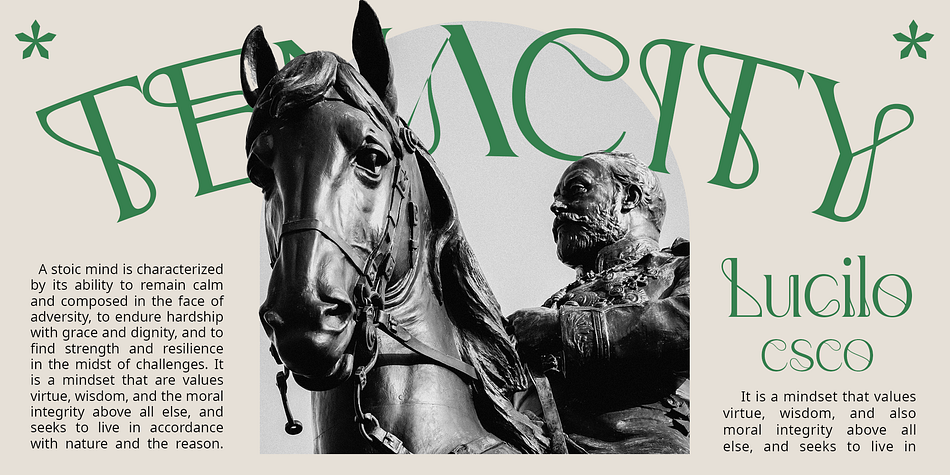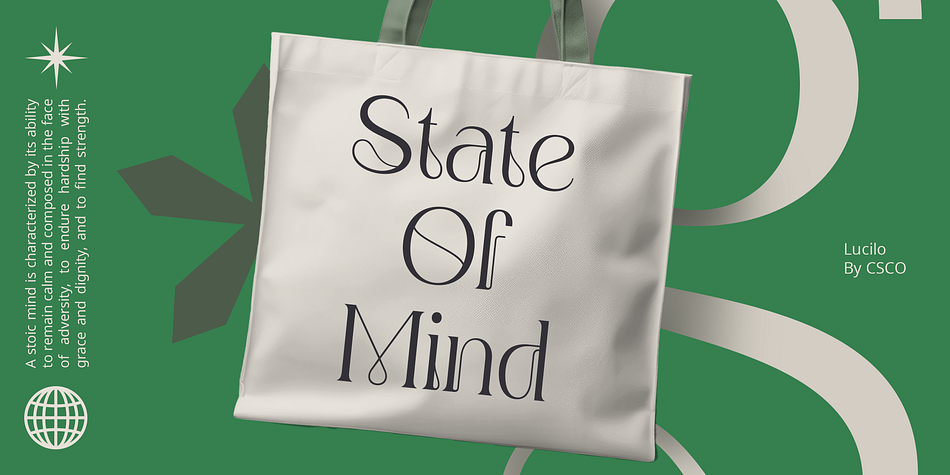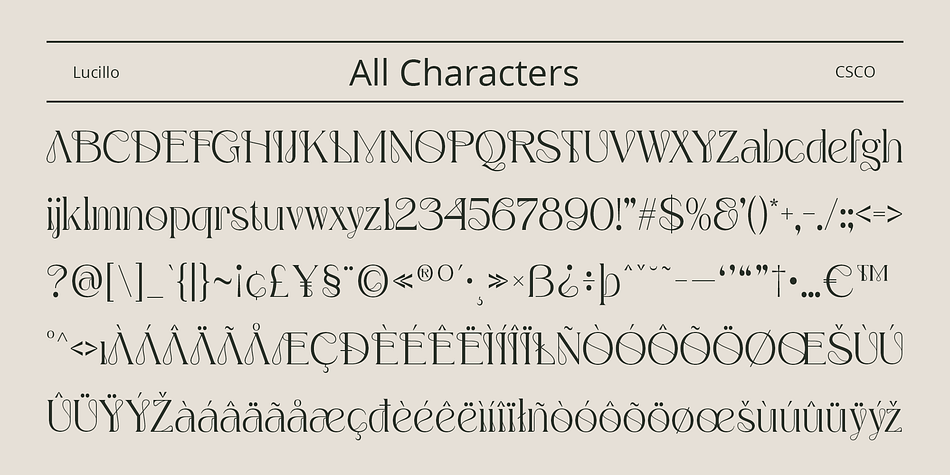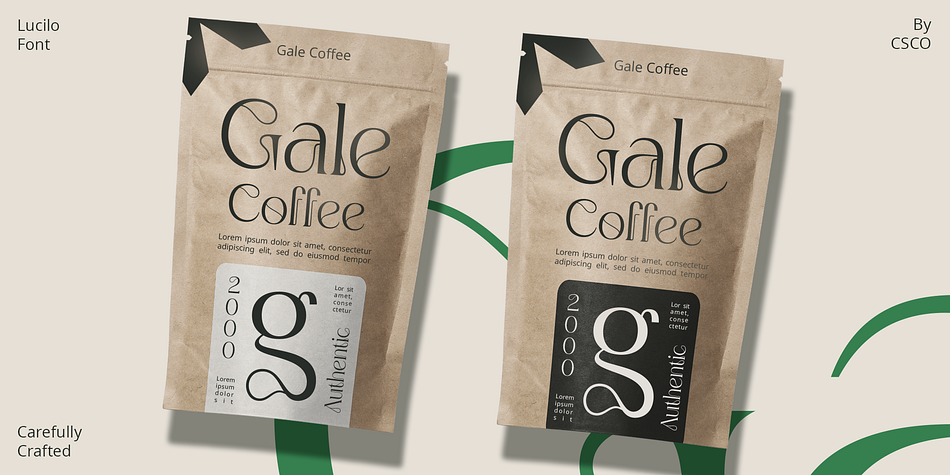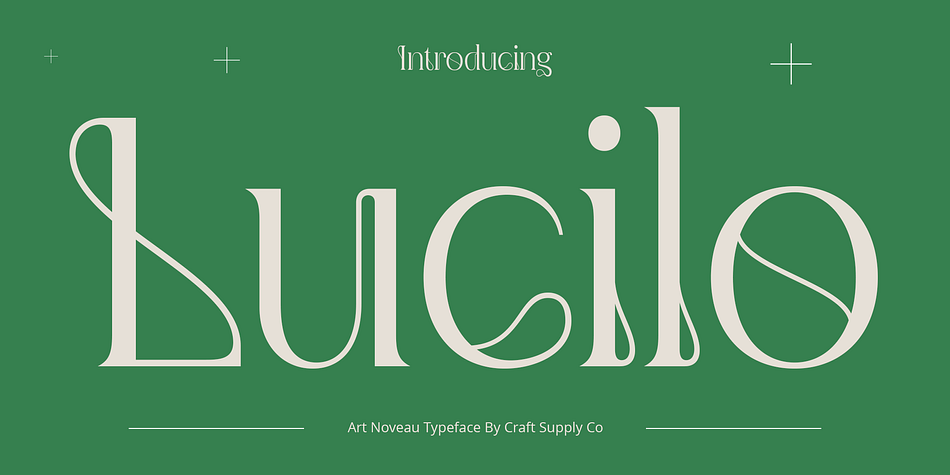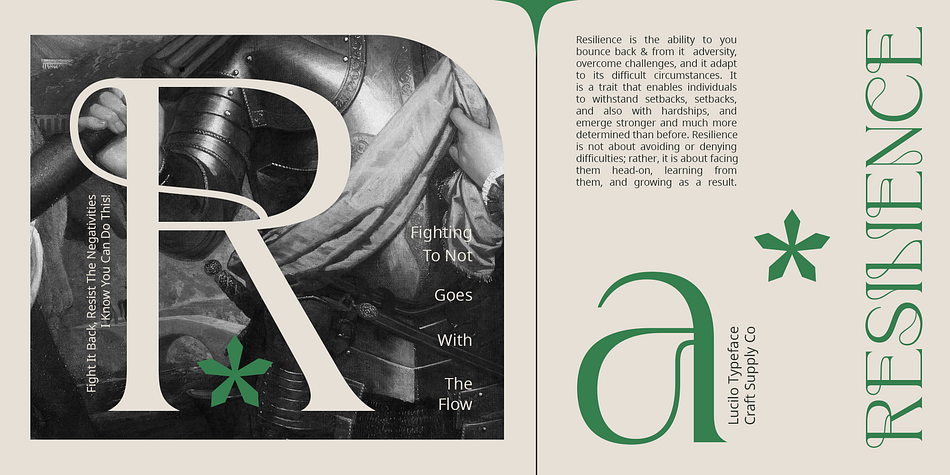
Lucilo
Lucilo is an art nouveau font family. This typeface has two styles and was published by Craft Supply Co.
Lucilo – Art Nouveau Font: Where Elegance Meets Beauty
Inspired by Art Nouveau
Lucilo – Art Nouveau Font draws inspiration from the beauty serif and intricacy of the Art Nouveau movement. With graceful curves and intricate details reminiscent of this timeless artistic style, Lucilo captures its essence with finesse.
Beauty Look and Feel
Experience the captivating beauty and timeless elegance of Lucilo Font. Its graceful strokes and delicate features evoke a sense of sophistication, adding a touch of refined beauty to every design project it graces.
Elegant Vibes
Elevate your designs with the sophisticated and elegant vibes of Lucilo Font. With its refined aesthetic, Lucilo captivates viewers and commands attention, making it the perfect choice for projects that demand a touch of class and elegance.